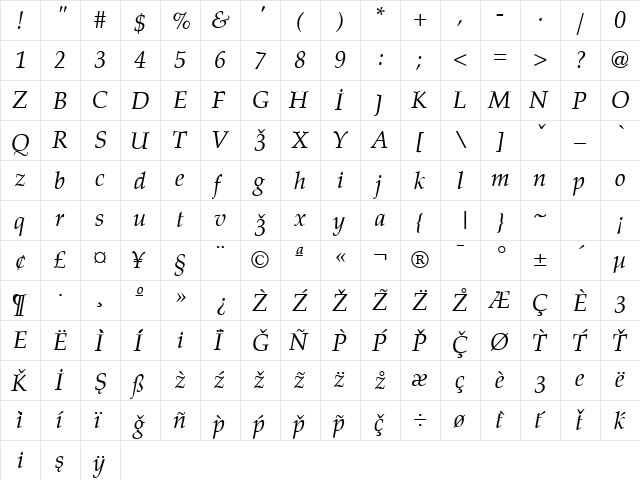
Lazuri COSMIC Regular
Design Context for Lazuri COSMIC Typeface
Lazuri COSMIC is a composed and adaptable typeface that performs quietly and consistently across a wide range of design contexts.